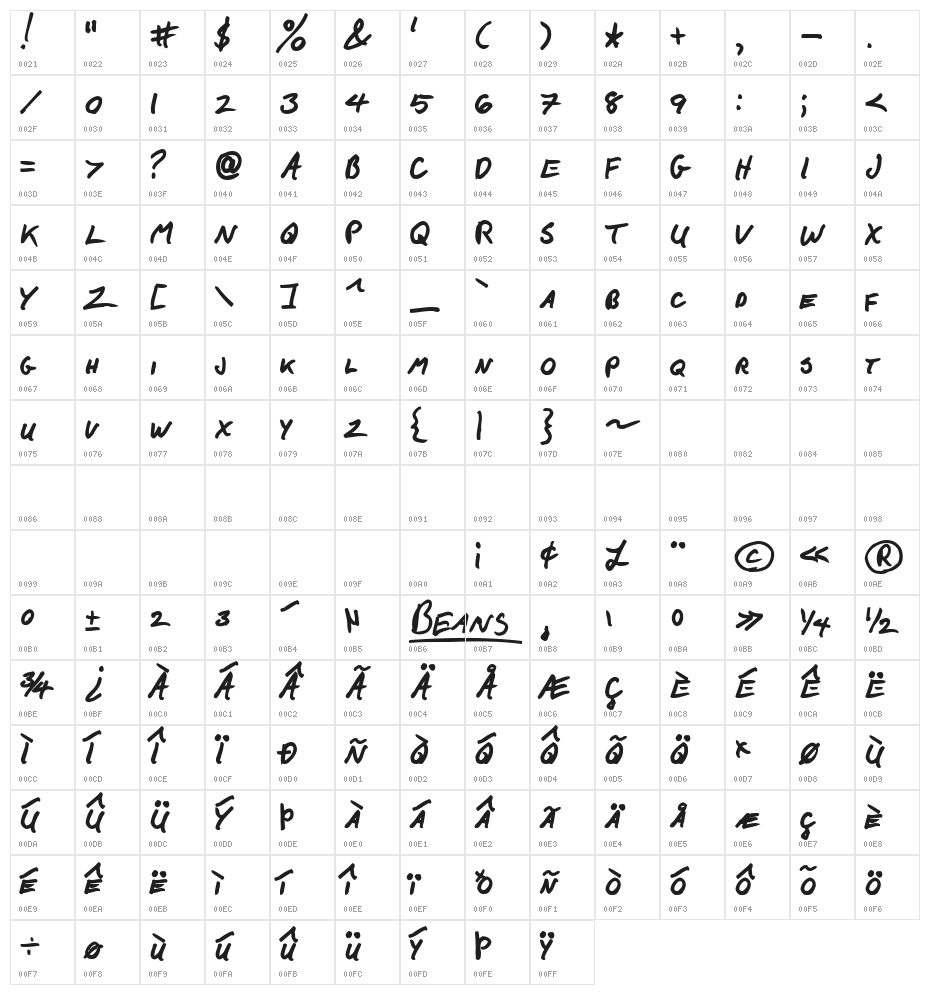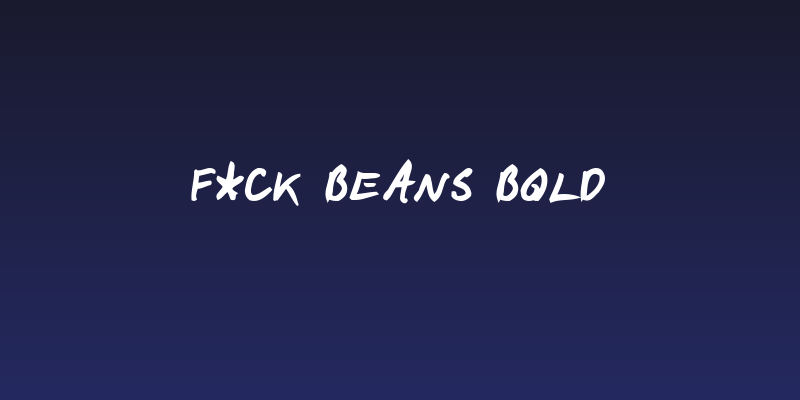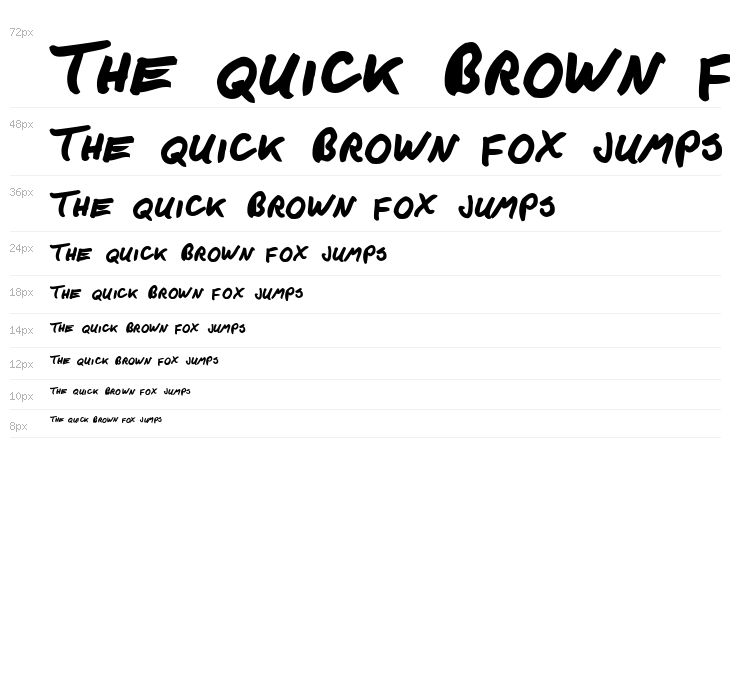
F*ck Beans Bold Font
F*ck Beans Bold Description
This font features a bold and energetic handwritten style, characterized by its thick strokes and dynamic flow. The letters are slightly slanted, giving a sense of movement and spontaneity. The uppercase and lowercase letters maintain a consistent style, with rounded edges and a casual, informal appearance. The numerals and special characters are crafted with the same boldness, ensuring uniformity across all glyphs. This font exudes a playful and lively vibe, making it suitable for projects that require a personal touch.
| Proposed Projects | Ideal for greeting cards, posters, branding projects, and social media graphics that aim to convey a personal and lively message. |